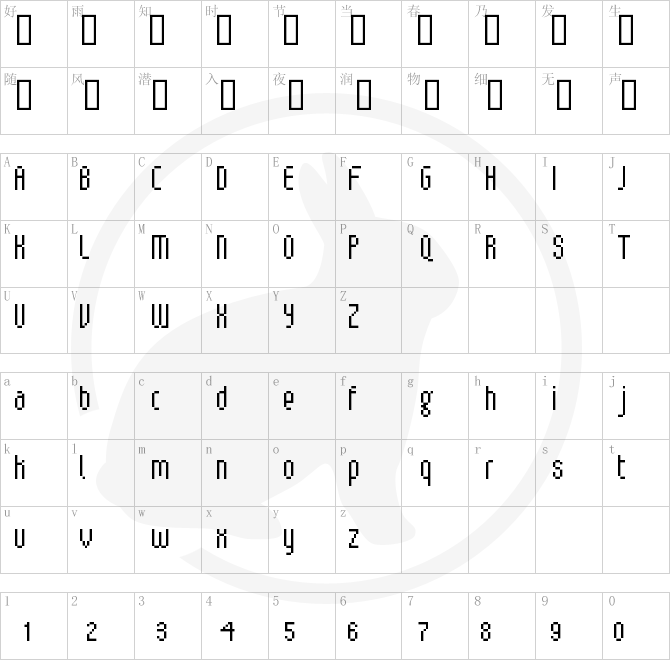
- Font Name:V5 Loxica
- Subfamily:Loxica [Lixera] - Designed by Roberto Christen
V5-Loxica-Lixera-copy-1-.ttf is a very beautiful artistic font, V5-Loxica-Lixera-copy-1-.ttf is widely used in the design and printing of various books and pictures,V5-Loxica-Lixera-copy-1-.ttf has a strong visual impact,V5-Loxica-Lixera-copy-1-.ttf is a commonly used font in newspapers, magazines and books, and is used in posters, e-commerce Poster design, store design, logo design, font design and other fields.V5-Loxica-Lixera-copy-1-.